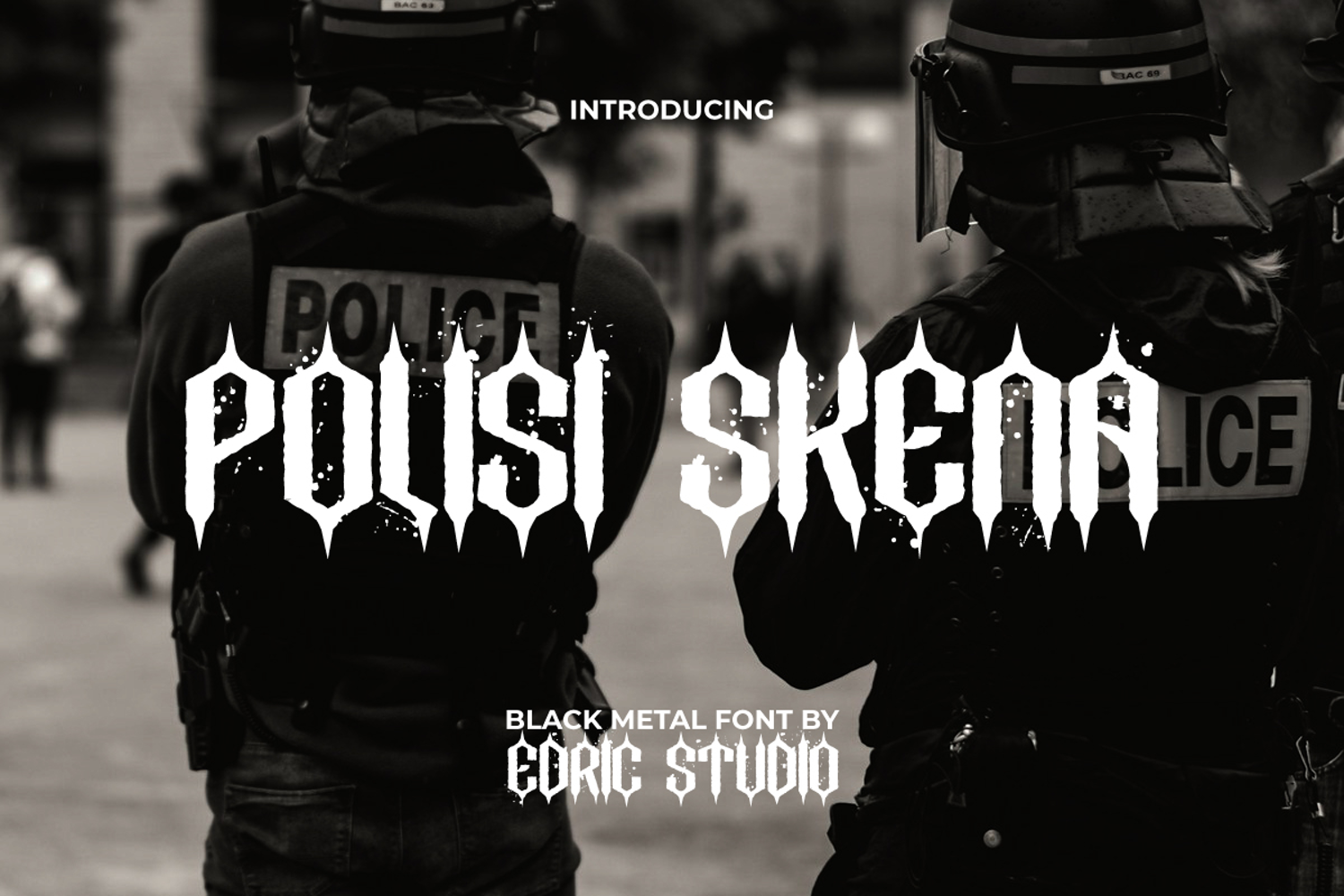
Polisi Skena Font
Polisi Skena Blackletter Font an exquisite hardcore black metal font infused with a touch of retro urban style.
Polisi Skena Blackletter Grunge Font includes a complete set of ALL CAPS for upper and lower case letters, Numbers, Punctuation and Symbols. Whether you are designing for a clothing brand, music festival, film, or digital media, this typeface delivers a visually striking impact that sets your work apart.
Polisi Skena Font a playful typeface with unique decoration in each character. Combine different characters for a bespoke, handcrafted feel. It’s tested to work well in the Adobe Apps (Illustrator, Adobe InDesign, Adobe Photoshop) even work on Microsoft Word. Thanks to PUA encoding, every glyph and alternate character is accessible for custom creative control.